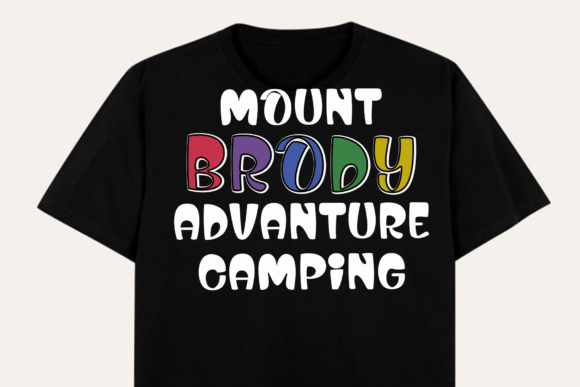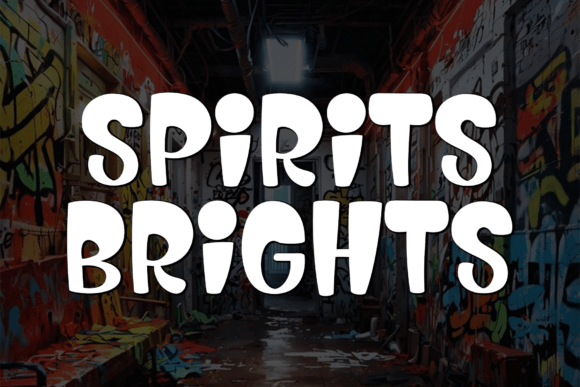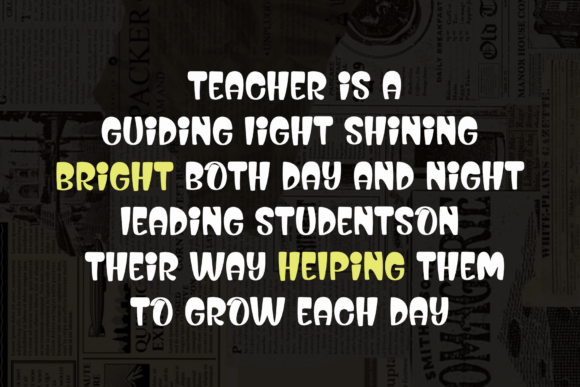
Introduction to Painters Coloring Font
Painters Coloring is a unique, ultra-chunky, and rounded modern display font designed for a playful, hand-drawn look.
Its massive, bold letterforms and soft, uneven edges give it a fun, cartoonish, and highly approachable aesthetic, reminiscent of a simple graffiti or bubble style This font is excellent for children’s products, playful branding, impactful headlines, and any project that needs a strong, cheerful, and memorable visual statement.